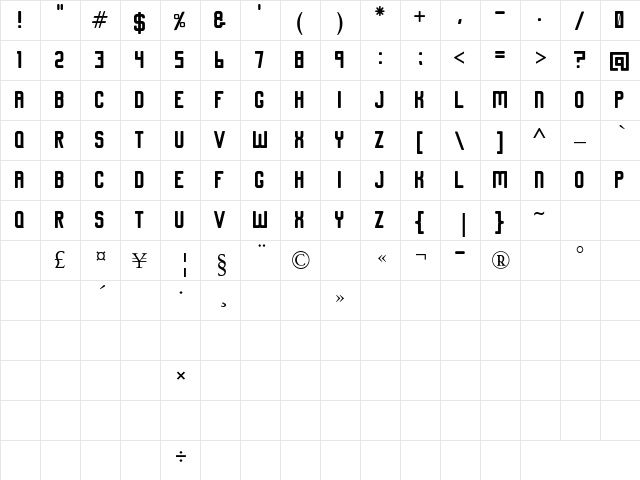
Piedmont Hill Regular
Design Context for Piedmont Hill Typeface
Piedmont Hill takes a measured approach to typography — its balanced proportions and neutral character make it a reliable workhorse for both digital and print work.
Pro Tip: Use Piedmont Hill in both headline and body roles to test its range before committing to a single application.